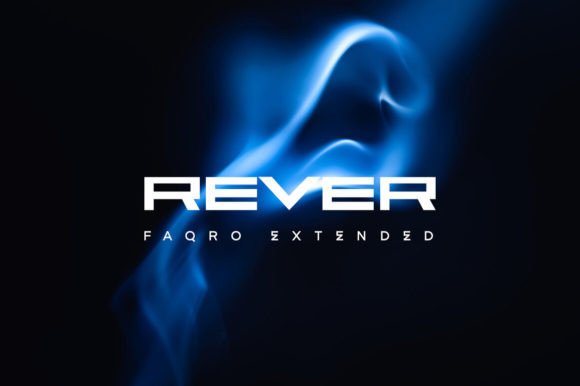
Faqro Extended Font: Elevate Your Brand’s Visual Identity
In today’s digital landscape, establishing a strong brand presence is crucial for businesses to thrive. With the vast amount of content competing for attention, it’s essential to create a unique visual identity that sets your brand apart. One effective way to achieve this is by utilizing distinctive fonts, such as the Faqro Extended Font. In this article, we’ll explore the benefits of using this font and how it can help unlock your brand’s full potential.
The Power of Typography in Branding
Typography plays a vital role in shaping a brand’s visual identity. The font you choose can convey your brand’s personality, tone, and values, making it an essential element in your branding strategy. A well-crafted font can:
- Enhance brand recognition and recall
- Convey emotions and create a lasting impression
- Differentiate your brand from competitors
- Establish a consistent visual language across platforms
Introducing Faqro Extended Font
The Faqro Extended Font is a meticulously crafted digital tech font designed to help brands stand out in a crowded market. Its unique features and characteristics make it an ideal choice for businesses looking to create a distinctive visual identity.
Key Features:
- Extended font family with multiple weights and styles
- Clean and modern design with a focus on legibility
- Supports multiple languages and special characters
- Optimized for digital use, ensuring crisp rendering on various devices
Ditch the Generic, Embrace the Expressive
In a world saturated with pixels and noise, it’s easy to get lost in the crowd. Generic fonts can make your brand appear bland and unoriginal, failing to capture the attention of your target audience. By choosing a distinctive font like Faqro Extended, you can:
- Create an emotional connection with your audience
- Stand out from competitors and establish a unique identity
- Convey your brand’s values and personality
- Elevate your brand’s overall visual aesthetic
Unlocking Your Brand’s Full Potential
By incorporating the Faqro Extended Font into your branding strategy, you can unlock your brand’s full potential. Here are some ways this font can benefit your business:
- Enhance brand recognition: A distinctive font like Faqro Extended can help create a lasting impression on your audience, making it easier for them to remember your brand.
- Establish a consistent visual language: Using a unique font across all your marketing channels can help create a cohesive visual identity, reinforcing your brand’s message and values.
- Differentiate your brand: By choosing a font that stands out from the crowd, you can differentiate your brand from competitors and establish a unique market presence.
- Improve user experience: A clean and legible font like Faqro Extended can enhance user experience, making it easier for your audience to engage with your content.
Best Practices for Implementing Faqro Extended Font
To get the most out of the Faqro Extended Font, follow these best practices:
- Use it consistently: Apply the font across all your marketing channels to create a cohesive visual identity.
- Choose the right weight and style: Select the font weight and style that best suits your content and brand message.
- Pair it with complementary fonts: Combine Faqro Extended with complementary fonts to create a harmonious visual aesthetic.
- Test and iterate: Experiment with different font sizes, colors, and styles to find the optimal combination for your brand.
In conclusion, the Faqro Extended Font is a powerful tool for businesses looking to elevate their brand’s visual identity. By choosing a distinctive font like Faqro Extended, you can create a lasting impression on your audience, establish a unique market presence, and unlock your brand’s full potential. Remember to follow best practices for implementation and experiment with different styles to find the perfect fit for your brand.